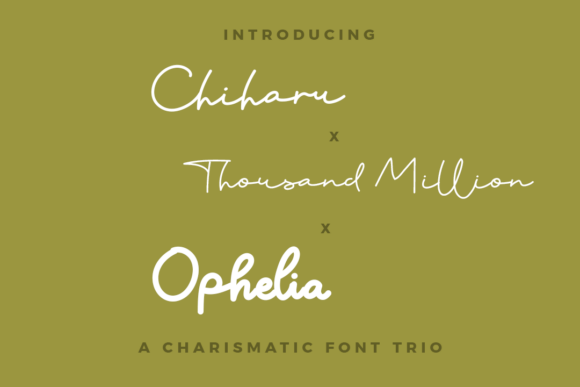
The Art of Elegant Typography: Discover the Chiharu, Thousand Million, Ophelia Trio Font
Have you ever stared at a beautiful handwritten note, mesmerized by the flow of the letters and the emotion behind each stroke? That’s exactly the kind of creative moment that inspired us to explore the captivating world of cursive typography. And today, we’re excited to introduce you to the stunning Chiharu, Thousand Million, Ophelia Trio Font – a trio of elegant fonts that will add a touch of sophistication to your designs.
This beautifully crafted font trio is a must-have for designers seeking to elevate their projects with artistic flair. With its unique blend of Japanese-inspired elegance, versatile style, and sophisticated charm, the Chiharu, Thousand Million, Ophelia Trio Font is the perfect addition to any design arsenal.
Chiharu, Thousand Million, Ophelia Trio Font Key Features
- Font Family: Chiharu, Thousand Million, Ophelia Trio Font is a unique, multistyle font family designed to evoke a sense of elegance and sophistication.
- Unique Characteristics: Chiharu, Thousand Million, Ophelia Trio Font features a distinctive, handwritten style with subtle flourishes and connectors, making it ideal for creating unique and eye-catching designs.
- Font Styles: The font family includes 3 main styles: Chiharu, Thousand Million, and Ophelia Trio, each with its own unique characteristics and flair.
Designer Review: Chiharu, Thousand Million, Ophelia Trio Font
After diving into the Chiharu, Thousand Million, Ophelia Trio Font, I must say it’s a beautiful, elegant addition to any design project. ✨ The fluid lines, precise typography, and subtle texture evoke a sense of sophistication and refinement.
The font is well-suited for projects requiring a touch of luxury, such as high-end branding, advertising, or editorial content. Its versatility in both print and digital formats makes it a great asset for designers.
- ✨ Elegant and refined aesthetic, perfect for luxury brands
- ✨ High-quality typography with precise lines and subtle texture
- ✨ Versatile in both print and digital formats
- ⚠️ Limited font size flexibility, may require adjustment for smaller text
- ⚠️ Some characters may not be compatible with certain operating systems or devices
Overall, I’m impressed by the Chiharu, Thousand Million, Ophelia Trio Font’s sophistication and elegance. While it may have some limitations, its unique charm and high-quality design make it a valuable addition to any designer’s toolkit.
Chiharu, Thousand Million, Ophelia Trio Font Practical Application Guide
The Chiharu, Thousand Million, Ophelia Trio font is ideal for creative projects, such as:
– Wedding invitations
– Artistic posters
– Book covers
Q: What is the recommended font pairing for the Chiharu, Thousand Million, Ophelia Trio font?
The Chiharu, Thousand Million, Ophelia Trio font is a elegant and sophisticated font, and it pairs well with other fonts that have a similar feel. Some recommended font pairings include Open Sans, Lato, and Montserrat. However, feel free to experiment with different font pairings to find the perfect combination for your design.